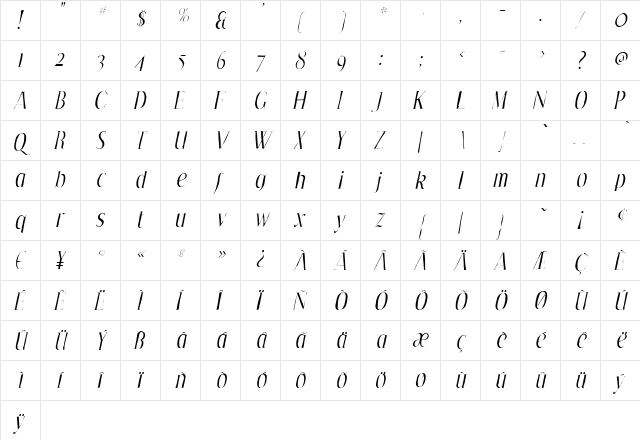
Effloresce Gaunt Italic
Design Context for Effloresce Gaunt Typeface
Effloresce Gaunt is a composed and adaptable typeface that performs quietly and consistently across a wide range of design contexts. The dynamic lean of this cut emphasises speed and emphasis in any layout.
Pro Tip: Use Effloresce Gaunt for emphasis, pull quotes, and subheadings where its slanted energy can add rhythm to the layout.